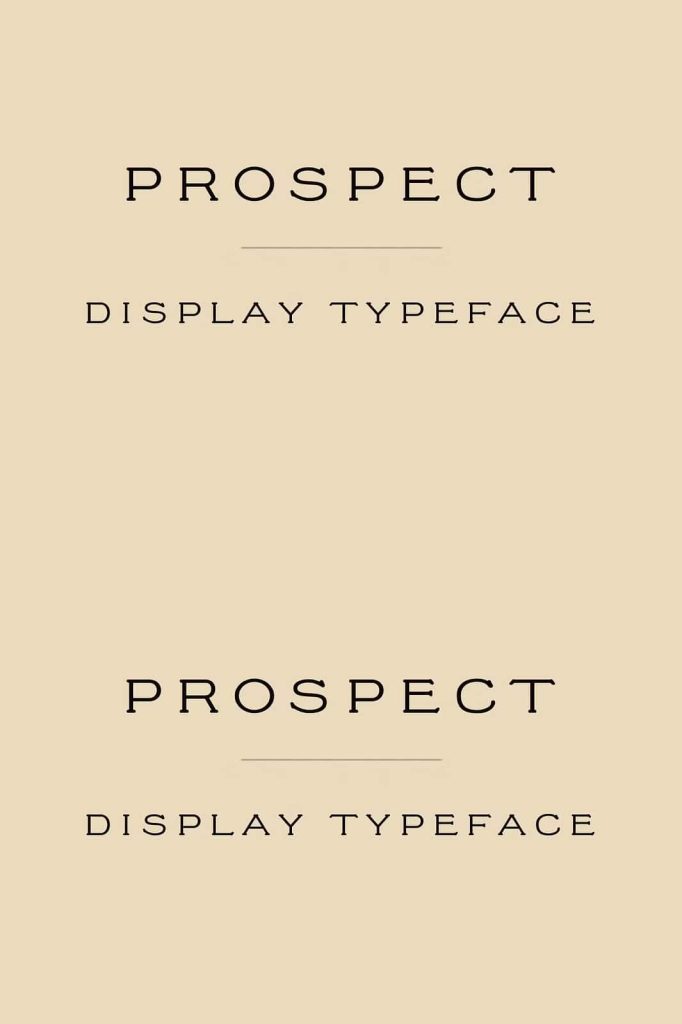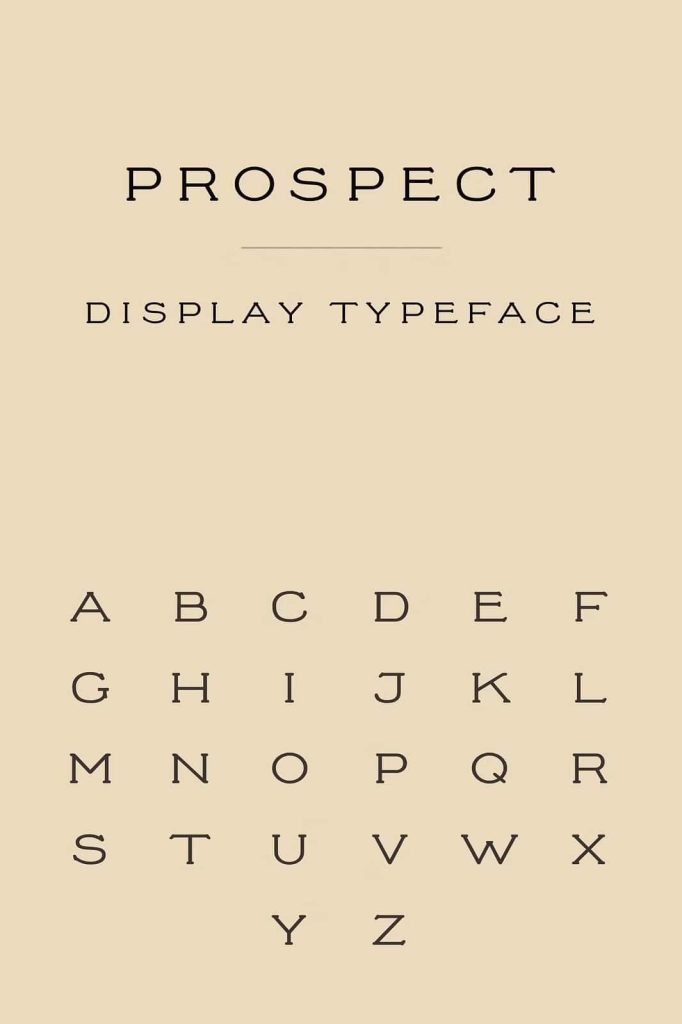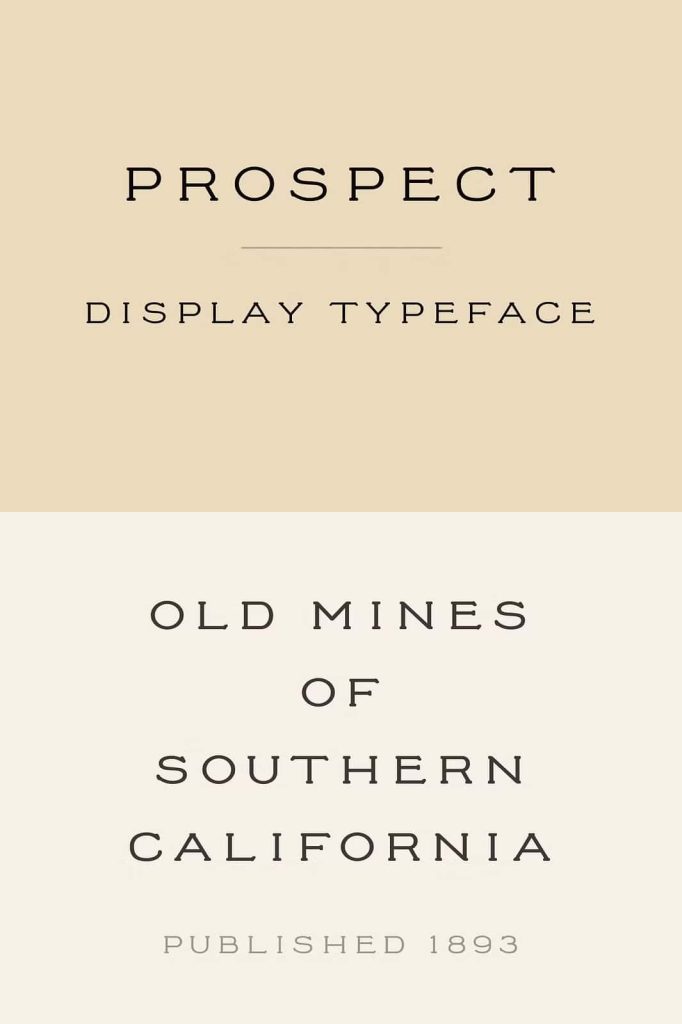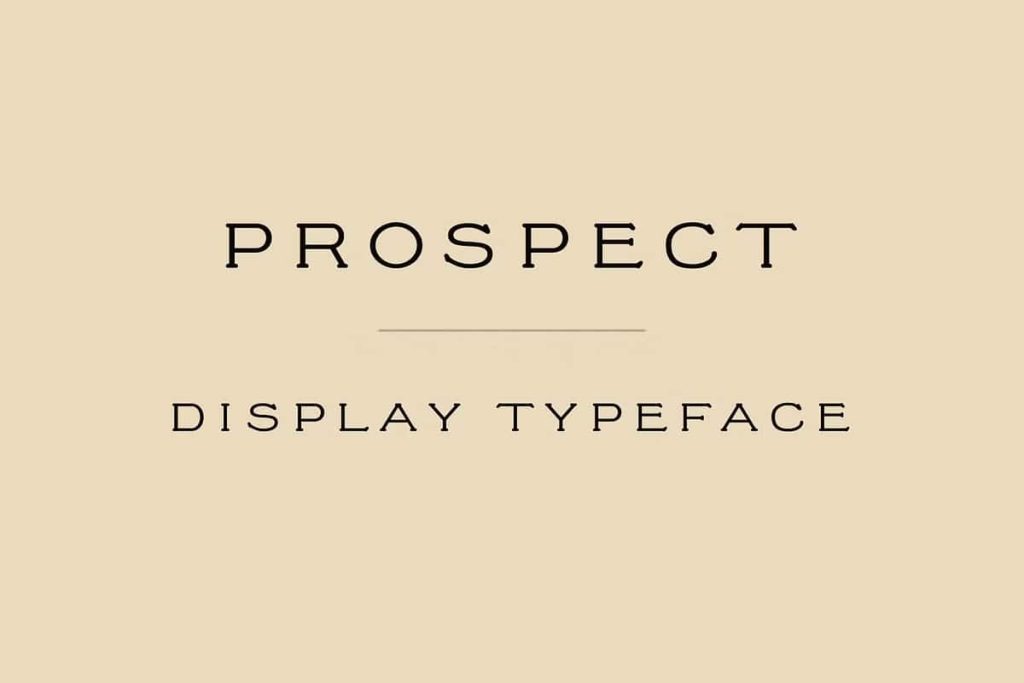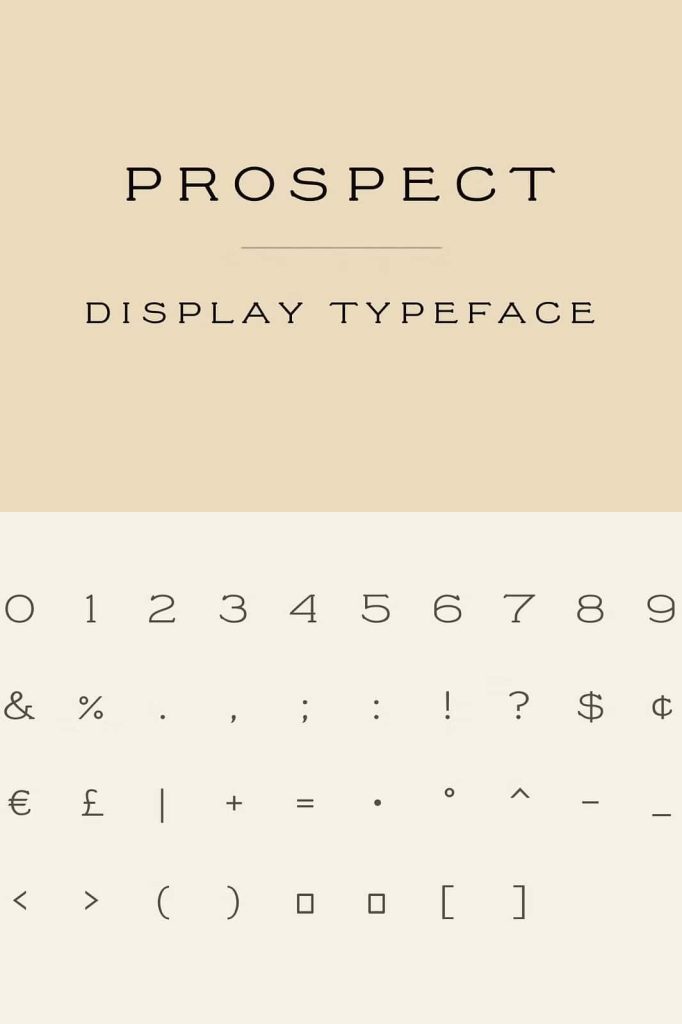
Prospect Display Font: A Bold Antique All-Caps Typeface
Prospect stands out as a distinctive antique-style display font that uses strong, all-caps lettering to deliver a timeless and commanding visual presence. Designers choose this typeface to create bold headlines, vintage-inspired branding, and striking visual identities that demand attention. With its classic structure and historical influence, Prospect adds depth and authenticity to modern and retro design projects alike.
What Makes Prospect a Unique Display Font?
Prospect embraces the essence of antique typography while maintaining a clean and structured appearance. The all-caps format enhances readability and ensures consistency across large-format text such as posters, banners, and logos. Designers rely on Prospect to create visual impact without sacrificing elegance.
This font captures the charm of historical print styles while adapting to contemporary needs. It blends decorative elements with solid letterforms, making it suitable for both artistic and professional applications.
Key Characteristics of Prospect
- All-caps lettering for strong and consistent typography
- Antique-inspired design with vintage detailing
- High visual impact for headlines and titles
- Clean structure that supports readability
- Versatile use across print and digital media
Why Designers Choose Antique Display Fonts
Antique display fonts like Prospect offer more than just visual appeal. They tell a story. Designers use these fonts to evoke nostalgia, tradition, and craftsmanship. By incorporating historical design elements, Prospect helps create a deeper emotional connection with audiences.
Unlike modern minimalist fonts, antique display fonts carry personality and texture. They allow designers to break away from generic typography and introduce a unique visual voice into their projects.
Common Use Cases
Prospect works exceptionally well in various creative contexts. Designers often apply it in:
- Brand logos that require a vintage or heritage feel
- Posters and signage that need bold visual hierarchy
- Editorial headlines for magazines and publications
- Packaging designs that emphasize authenticity
- Event promotions with a classic or historical theme
How to Use Prospect Effectively
To maximize the impact of Prospect, designers should focus on contrast, spacing, and layout. Because the font uses all capital letters, it naturally draws attention. Pairing it with a simple body font can create a balanced and readable composition.
Adjust letter spacing to enhance clarity, especially in larger formats. When used in headlines, Prospect performs best with sufficient white space around the text. This approach allows each letter to stand out and strengthens the overall visual presentation.
Best Pairing Strategies
- Combine with clean sans-serif fonts for modern contrast
- Use neutral colors to highlight the font’s structure
- Apply texture or grain effects for added vintage feel
- Limit usage to headings to maintain readability
Prospect delivers a powerful combination of antique charm and bold typography. Its all-caps display style ensures strong visual presence, while its vintage influence adds character and depth. Designers who seek to create memorable and impactful designs will find Prospect a reliable and expressive choice.
By integrating Prospect into your projects, you can elevate your typography, strengthen your branding, and create designs that leave a lasting impression.